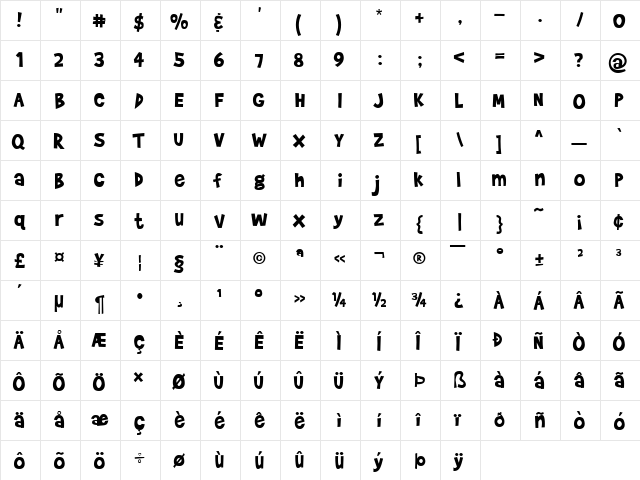
Brady Bunch Remastered Regular
Design Context for Brady Bunch Remastered Typeface
Brady Bunch Remastered is a composed and adaptable typeface that performs quietly and consistently across a wide range of design contexts.